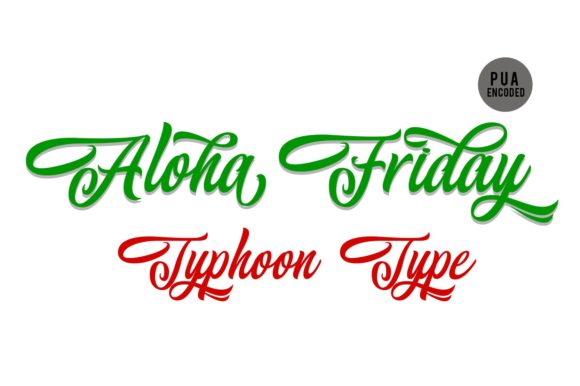
Aloha to the Weekend: Discover the Magic of Aloha Friday Font
As a designer, have you ever found yourself stuck on a Friday afternoon, brainstorming ideas for a new project, only to be hit with a burst of creative energy as the clock strikes 5 PM and the weekend begins? It’s as if the world suddenly becomes a more vibrant, colorful place, full of possibilities and inspiration. For many of us, this feeling is synonymous with the Aloha Friday Font, a playful and dynamic script that embodies the carefree spirit of the weekend.
Designed to bring a smile to your face, the Aloha Friday Font is more than just a font – it’s a state of mind. With its unique style and playful charm, it’s the perfect addition to any design project looking to add a touch of whimsy and fun. Whether you’re a seasoned designer or just starting out, this font is sure to inspire and delight.
Aloha Friday Font Key Features
- Font Style: Casual, Script Font
- Unique Characteristics: Handwritten, Hand-drawn, and Whimsical design, making it perfect for casual and creative projects
Aloha Friday Font Review
I recently had the chance to work with the Aloha Friday font, and I must say it’s a delightful addition to any design project. Here are some of the things that work well: ✨
- Unique and playful vibe: The Aloha Friday font has a fun, laid-back feel to it that’s perfect for projects that need a relaxed, tropical touch.
- High-quality typography: The font is well-designed and easy to read, even at smaller sizes.
- Good for headings and titles: The font’s bold and playful style makes it ideal for headings and titles that need to stand out.
- May not be suitable for formal projects: The Aloha Friday font is best suited for casual, creative projects. It may not be the best choice for formal or professional projects that require a more serious tone.
- Not as versatile as other fonts: The font’s unique style may limit its use in certain design contexts, such as projects that require a lot of body text or complex typography.
Overall, I think the Aloha Friday font is a great addition to any designer’s toolkit. Its unique style and high-quality typography make it a great choice for projects that need a fun, relaxed touch. Just be aware of its limitations and use it accordingly.
Use the Aloha Friday Font to add a touch of tropical flair to your designs. Experiment with different font sizes and styles to create visual interest. Pair the font with bright and bold colors to create a cohesive look.
The Aloha Friday Font is perfect for summer-themed designs, beach-inspired projects, and tropical-inspired marketing materials. It’s also great for creating fun and playful social media posts and graphics.
Alternatives to Aloha Friday Font
Lato is a clean and modern sans-serif font that is highly legible. It’s perfect for digital design, such as website headers, titles, and body text. Lato is more versatile and has a larger character set compared to Aloha Friday Font, making it a better choice for multi-language projects.
Comparison: Lato has a more contemporary feel and is more suitable for digital applications, while Aloha Friday Font has a more relaxed and casual tone.
Montserrat is a geometric sans-serif font that is highly legible and versatile. It’s perfect for digital design, such as website headers, titles, and body text. Montserrat is more condensed and has a stronger geometric feel compared to Aloha Friday Font, making it a better choice for projects that require a bold and modern look.
Comparison: Montserrat has a more modern and geometric feel, while Aloha Friday Font has a more relaxed and casual tone.